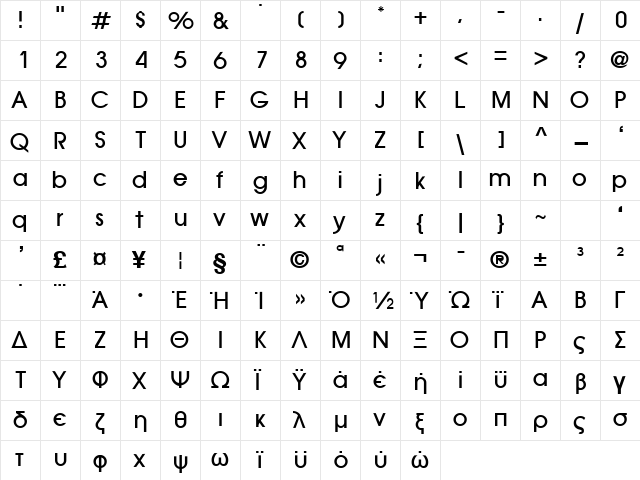
Avante Bold
Design Context for Avante Typeface
Avante takes a measured approach to typography — its balanced proportions and neutral character make it a reliable workhorse for both digital and print work. The heavy weight commands attention and anchors typographic hierarchies.